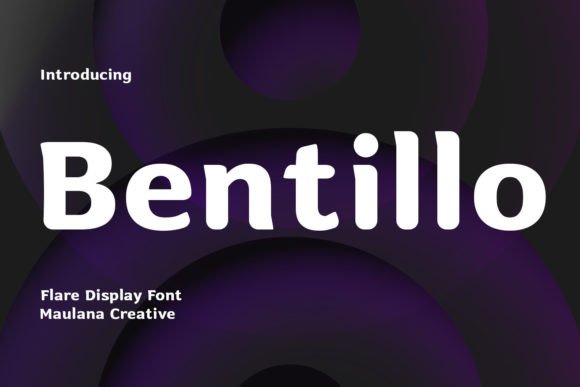
Prepare yourself to dive into the realm of captivating typography with Bentillo, the modern Decorative flared sans serif Display font that will transform your design portfolio into an awe-inspiring masterpiece. Bold strokes and a playful character, enhanced by a touch of ligature and alternates, make Bentillo the perfect choice for creating logos that demand attention, captivating social media posts that stand out in the crowd, and movie titles that ignite imagination. Whether it's book titles that intrigue or short and long text letters that captivate, Bentillo's versatility knows no bounds. Unleash your creativity and let Bentillo elevate your secondary text fonts, blending harmoniously with scripts or serifs to produce stunning works of art. With Bentillo, the possibilities are endless - make your mark and leave a lasting impression on the world of design.
But wait, there's more! Bentillo's PUA encoding unlocks a treasure chest of amazing glyphs and ligatures, empowering you with the tools to craft truly unique and captivating designs. Open the doors to limitless creativity and let Bentillo's charm work its magic. Transform your design portfolio into a captivating showcase of typographic excellence, leaving your audience spellbound and inspired. Embrace the power of Bentillo and let your designs reach new heights.